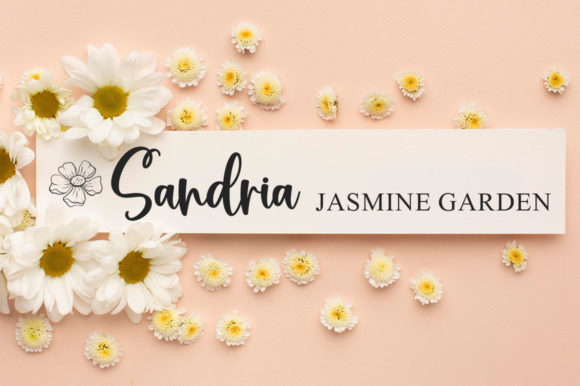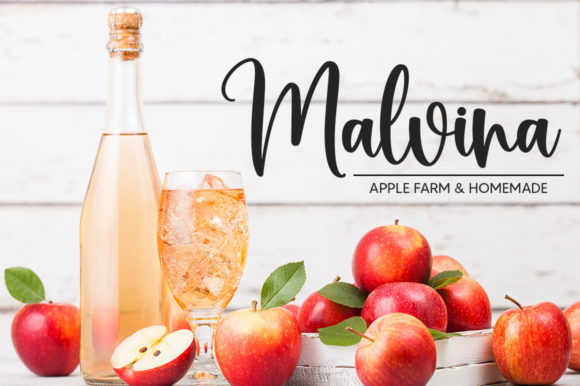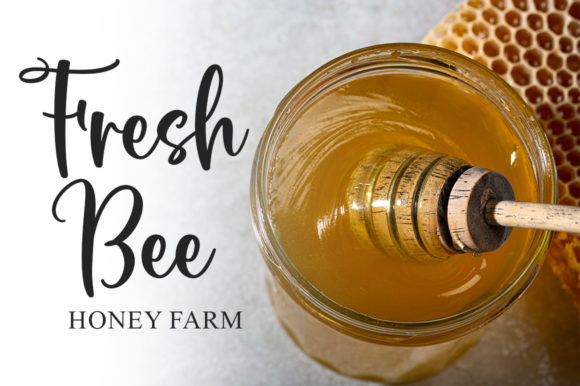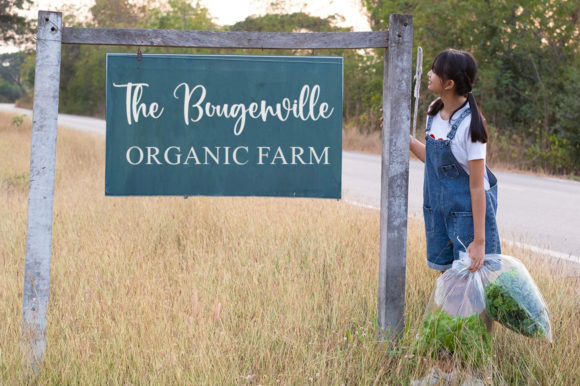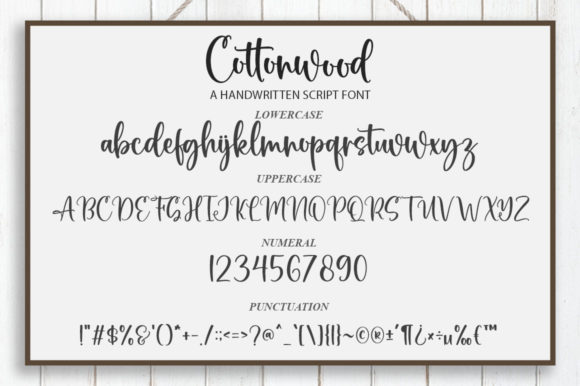
Cottonwood Font: Elevate Your Designs with Elegance and Sophistication
In the world of typography, fonts play a crucial role in conveying the tone and personality of a design. For designers and crafters seeking a delicate, elegant, and flowing handwritten font, Cottonwood is an excellent choice. This beautiful font boasts well-balanced characters that effortlessly match a wide range of designs, making it a versatile and valuable addition to any creative project.
The Characteristics of Cottonwood Font
Cottonwood is a handwritten font that exudes elegance and sophistication. Its delicate strokes and flowing lines create a sense of movement and fluidity, making it perfect for designs that require a touch of refinement. The font’s well-balanced characters ensure that it remains legible and visually appealing, even at smaller sizes.
One of the standout features of Cottonwood is its versatility. The font’s classic and timeless design makes it suitable for a wide range of applications, from wedding invitations and stationery to branding and packaging. Whether you’re creating a romantic and whimsical design or a more formal and professional one, Cottonwood is an excellent choice.
Why Designers and Crafters Love Cottonwood Font
Designers and crafters love Cottonwood for its unique combination of elegance and playfulness. The font’s handwritten feel adds a personal touch to any design, making it perfect for projects that require a human and approachable tone. Additionally, Cottonwood’s versatility makes it easy to pair with other fonts and design elements, allowing designers to create complex and visually appealing compositions.
Cottonwood is also a great choice for crafters who want to add a personal touch to their handmade projects. Whether you’re creating custom wedding invitations, crafting beautiful journal pages, or designing handmade cards, Cottonwood’s elegant and flowing lines will add a touch of sophistication and refinement to your work.
Tips for Using Cottonwood Font in Your Designs
To get the most out of Cottonwood, here are a few tips to keep in mind:
- Pair it with contrasting fonts: Cottonwood’s elegant and flowing lines make it a great choice for pairing with bold and contrasting fonts. This will create visual interest and add depth to your designs.
- Use it for headings and titles: Cottonwood’s delicate strokes and flowing lines make it perfect for headings and titles. Use it to add a touch of elegance and sophistication to your designs.
- Experiment with colors and textures: Cottonwood’s versatility makes it easy to pair with a wide range of colors and textures. Experiment with different combinations to find the one that works best for your design.
In conclusion, Cottonwood font is a beautiful and versatile handwritten font that is perfect for designers and crafters seeking to add a touch of elegance and sophistication to their designs. Its delicate strokes, flowing lines, and well-balanced characters make it a great choice for a wide range of applications, from wedding invitations and stationery to branding and packaging.
Whether you’re a designer looking to elevate your typography or a crafter seeking to add a personal touch to your handmade projects, Cottonwood is an excellent choice. With its timeless and classic design, Cottonwood is sure to become a staple in your font collection.